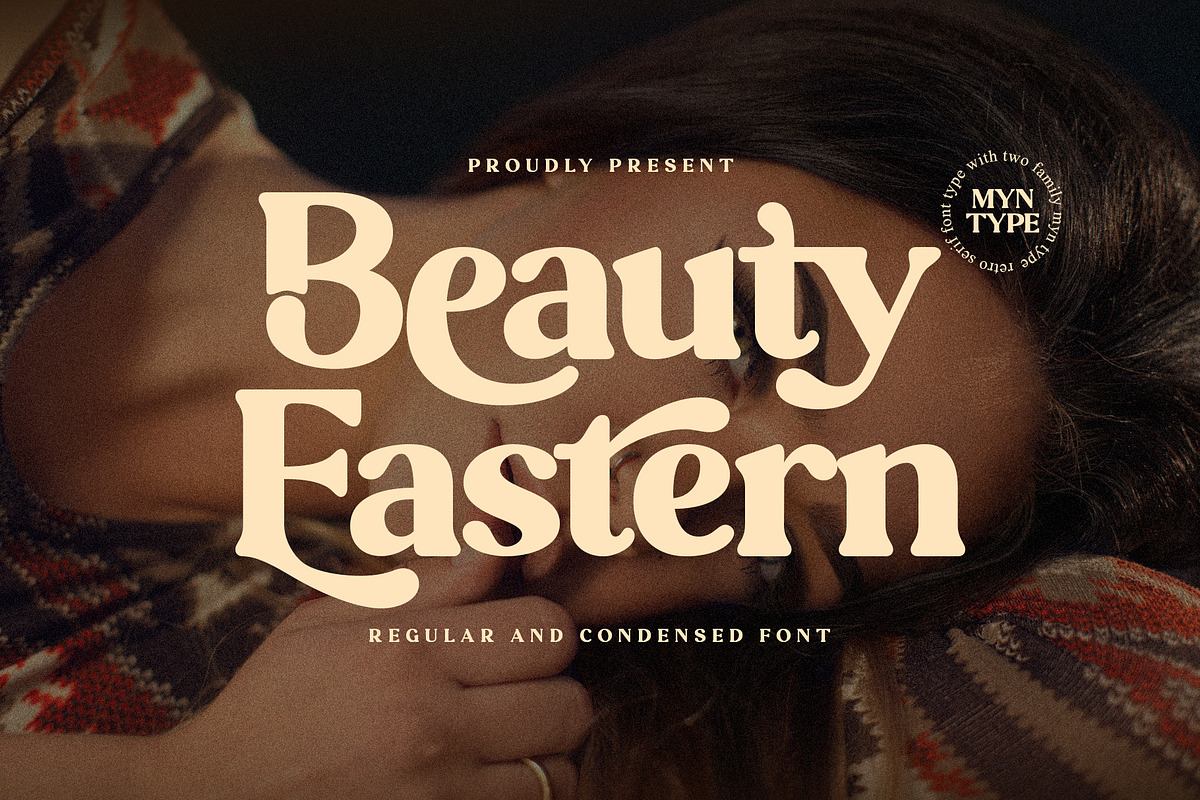
Beauty Eastern - Stylish Serif Font Free Download
Beauty Eastern - Stylish Serif Font Free Download is a retro-inspired typeface characterized by ornate, decorative serifs and timeless letterforms. Designed by Myn Type, this font brings a touch of vintage elegance to various design projects, including branding, invitations, posters, and editorial layouts.
Beauty Eastern is available in both Regular and Condensed styles, providing versatility to suit different design needs. The font package includes OTF, TTF, WOFF, and WOFF2 formats, ensuring compatibility across various platforms and applications.